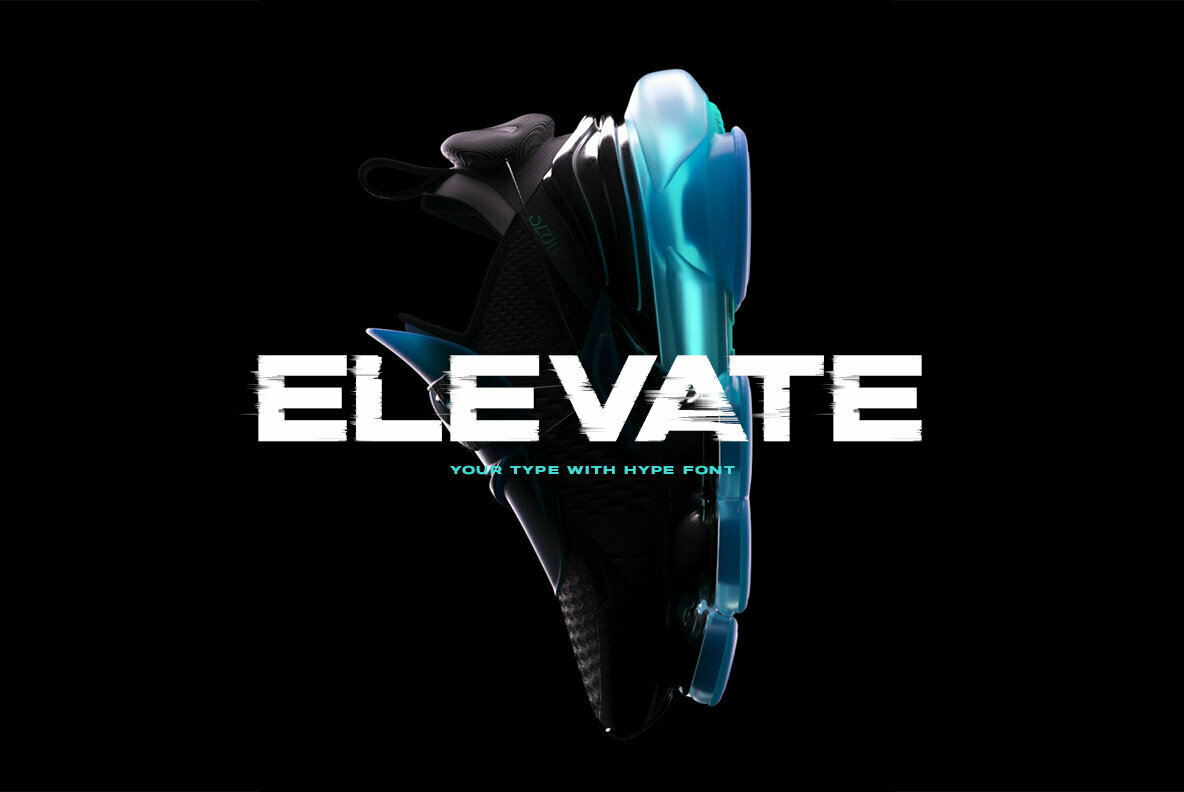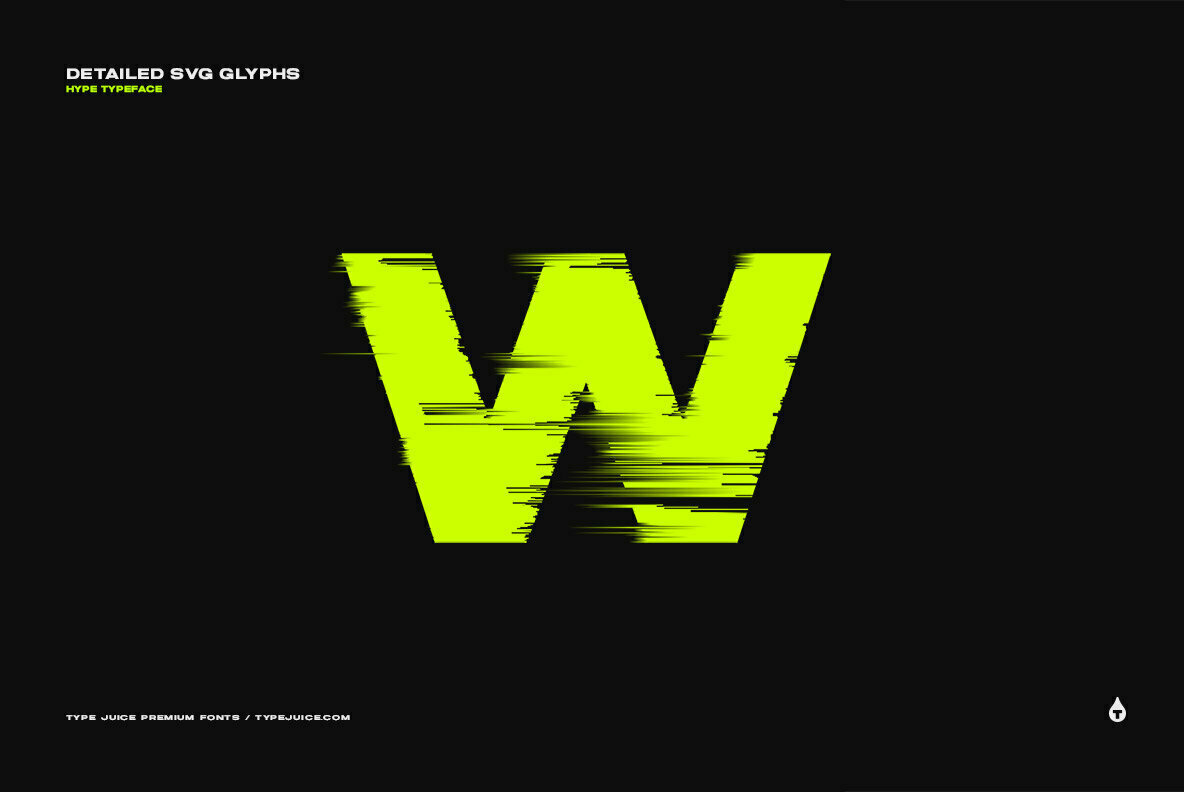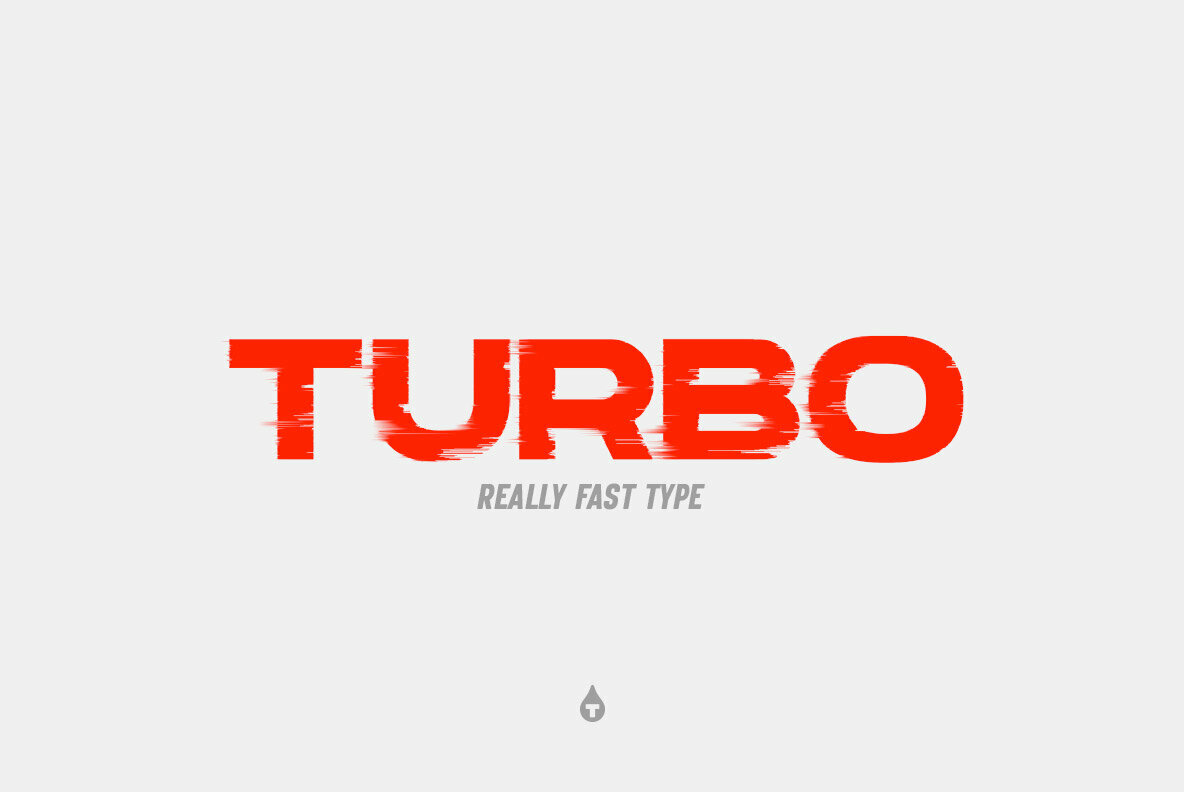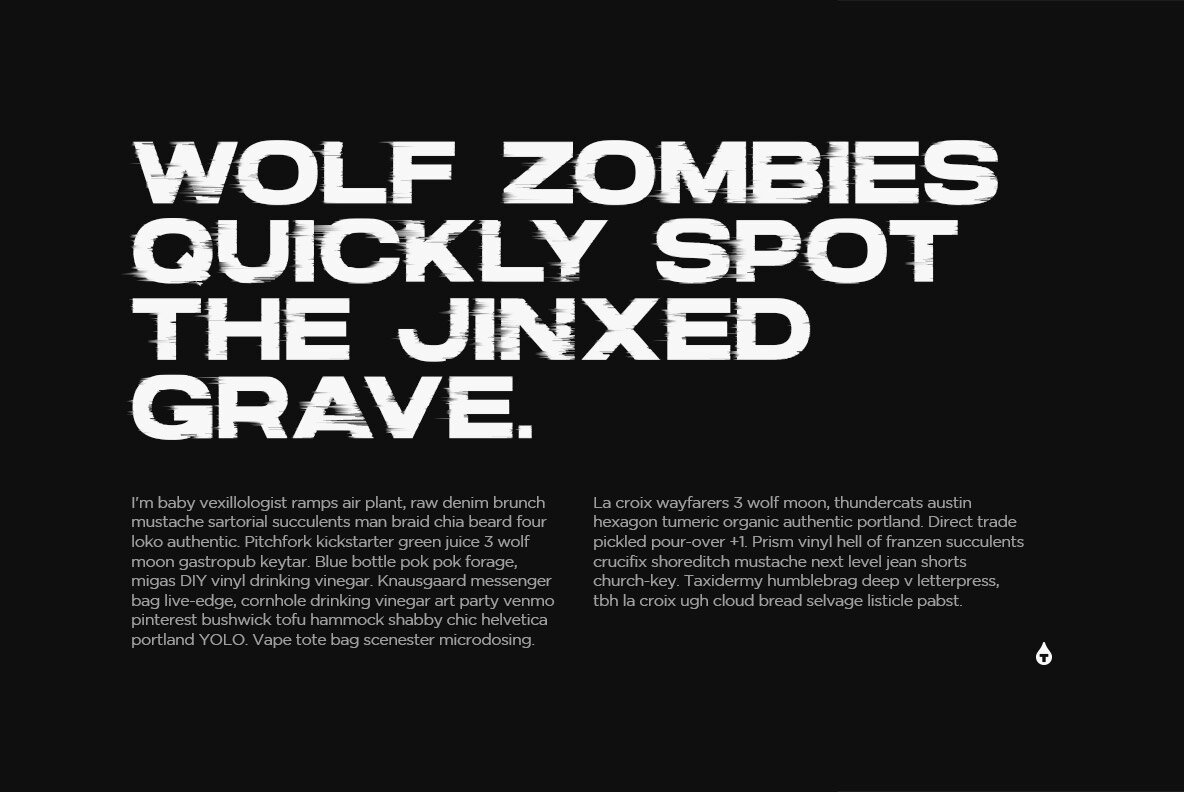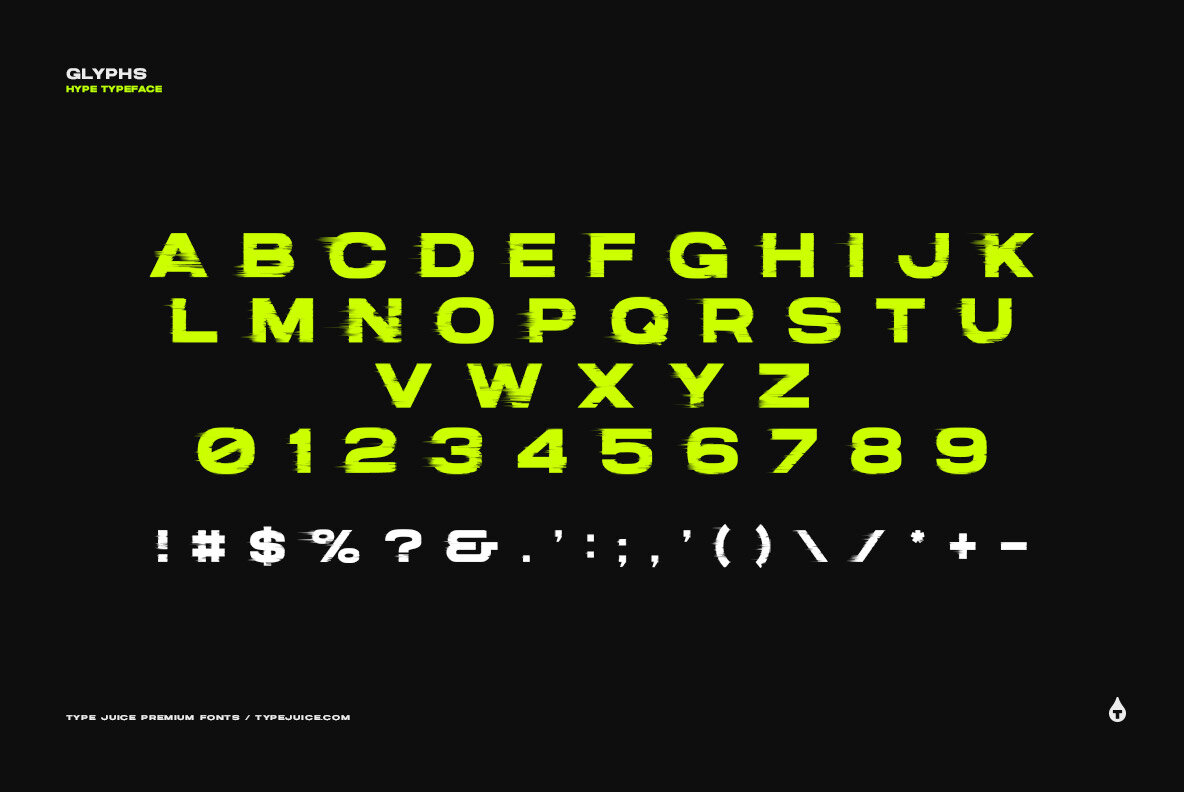
Hype is a bold pixel sorted SVG display font based on our best selling typeface Joyride. Included are high res ( 2K ) transparent PNG images for every glyph packaged with the OTF/TTF files.